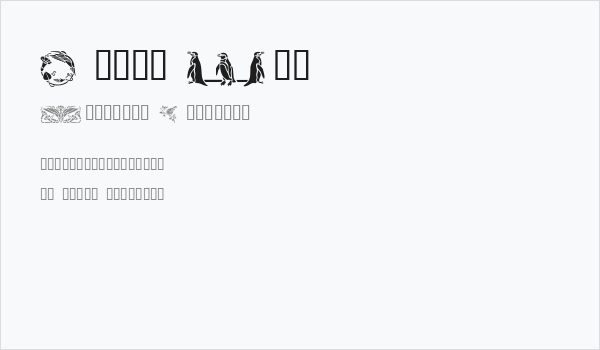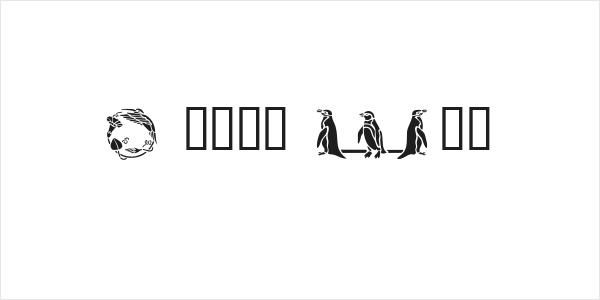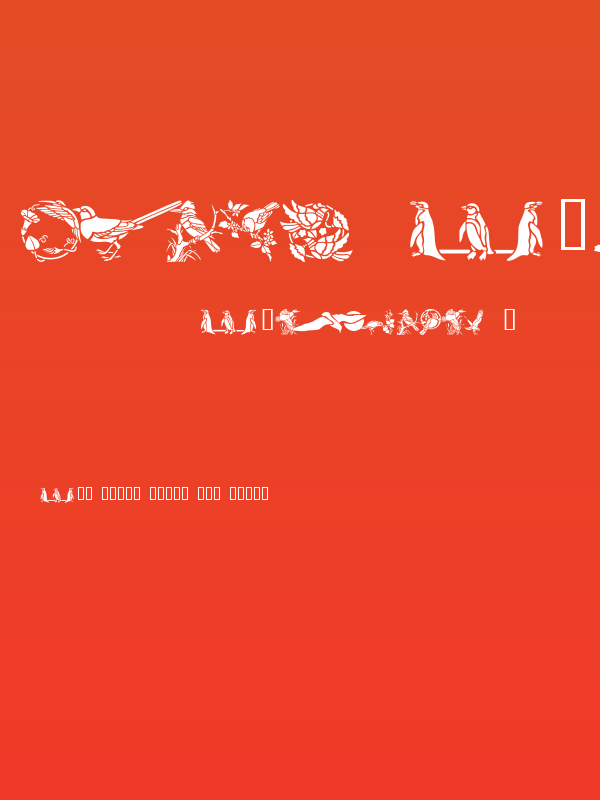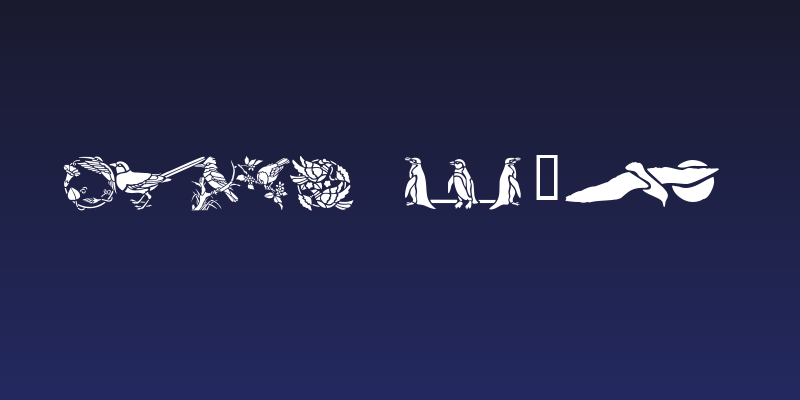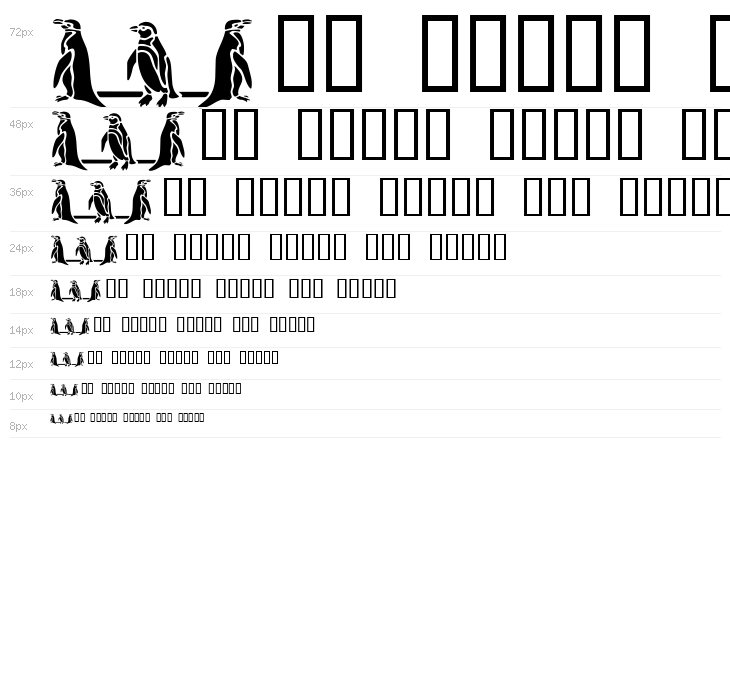
Birds Two Font
Birds Two Description
This decorative font features intricate bird-themed designs, with each character showcasing a unique bird motif. The letters are adorned with detailed illustrations of various birds, creating a whimsical and artistic appearance. The font is not designed for readability in text but rather for decorative purposes, making it ideal for projects that require a touch of nature-inspired elegance. The characters are highly stylized, with each letter incorporating elements of flora and fauna, adding to the overall charm and uniqueness of the design.
Use CaseLogos, Decorative headings, Artistic projects
Proposed ProjectsIdeal for nature-themed invitations, artistic posters, decorative headings, and unique branding projects.